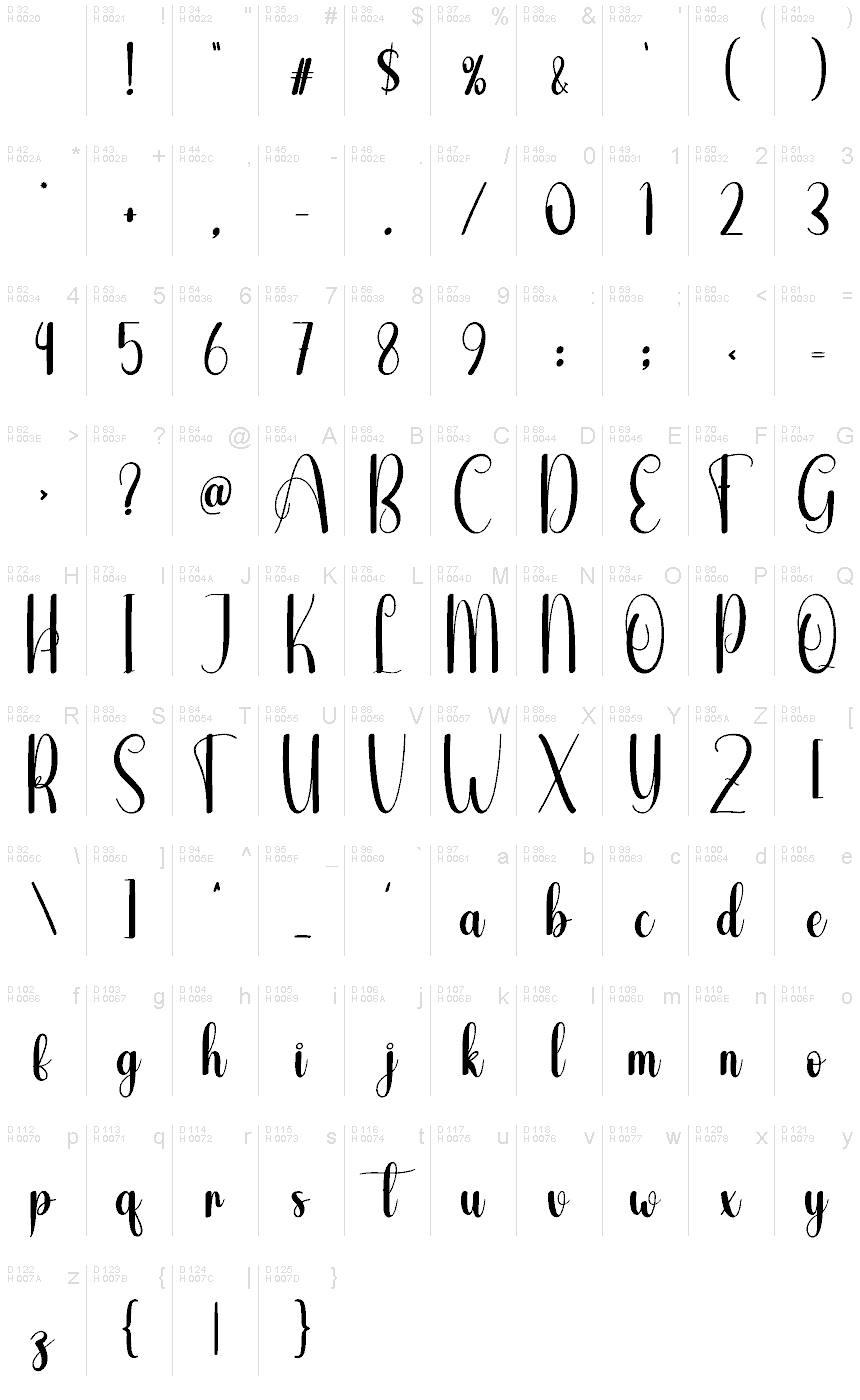
Processing
Processing font, designed by Andi Moz, is a handwritten condensed font that balances elegance and expressive modernity. It exudes a slightly romantic feel, with fluid lines and a stylistic flair that makes it more than just ordinary. Long strokes contribute to the modern appeal of this one which can be also considered as youthful.